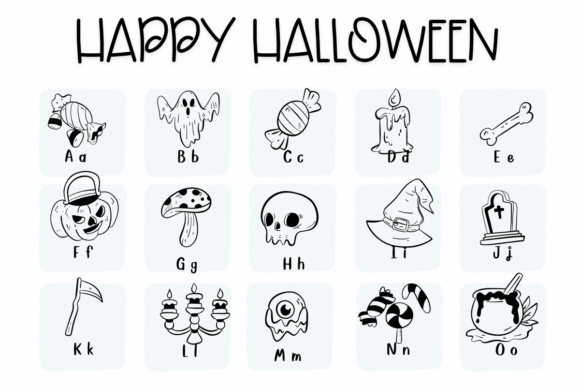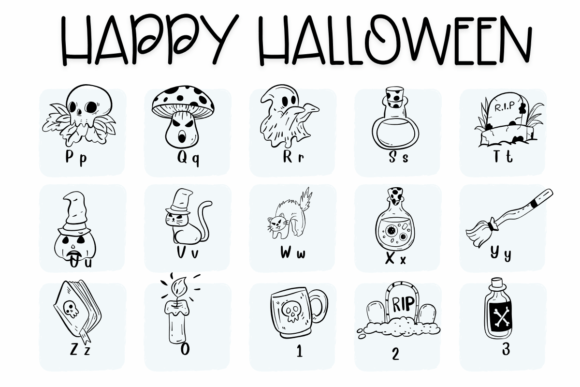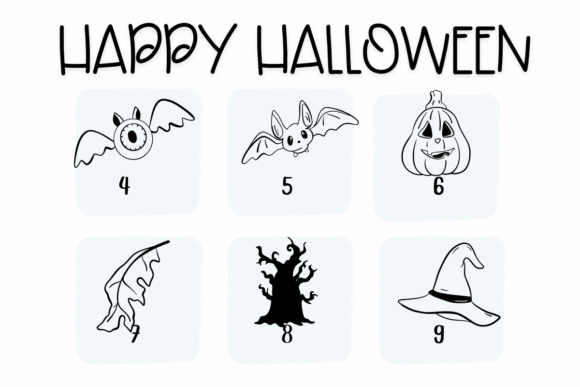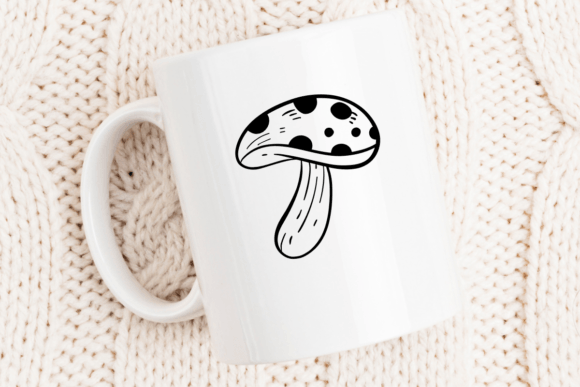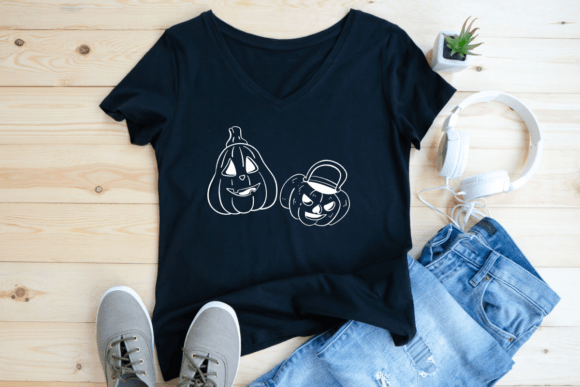
Happy Halloween Font: A Spook-tacular Addition to Your Creative Projects
Are you looking for a font that will add a touch of whimsy and playfulness to your creative projects? Look no further than the Happy Halloween font! This delightful dingbats font is perfect for designers, crafters, and DIY enthusiasts who want to add a spooky-ooky flair to their work.
What is Happy Halloween Font?
Happy Halloween is a unique dingbats font that features a sketch style theme. The font is designed to resemble hand-drawn illustrations, giving it a charming and rustic feel. The font includes a wide range of characters, symbols, and icons that are perfect for creating festive and fun designs.
Uses for Happy Halloween Font
The Happy Halloween font is incredibly versatile and can be used for a variety of creative projects, including:
- Wedding invitations: Add a touch of whimsy and romance to your wedding invitations with this delightful font.
- DIY crafts: Use the Happy Halloween font to create custom signs, decorations, and other DIY projects for your home or office.
- Decorations: Create festive decorations for Halloween, Christmas, or other holidays with this font.
- Logos: Use the Happy Halloween font to create unique and eye-catching logos for your business or brand.
- Stationery: Add a personal touch to your stationery, including greeting cards, thank-you cards, and more.
Why Choose Happy Halloween Font?
There are many reasons why you should choose the Happy Halloween font for your creative projects. Here are just a few:
- Unique and eye-catching: The Happy Halloween font is unlike any other font you’ll find. Its unique sketch style theme and wide range of characters make it perfect for creating designs that stand out.
- Versatile: This font can be used for a wide range of creative projects, from wedding invitations to DIY crafts.
- High-quality: The font is high-quality and comes with a range of characters, symbols, and icons that you can use to create professional-looking designs.
Tips for Using Happy Halloween Font
Here are a few tips for using the Happy Halloween font in your creative projects:
- Experiment with different sizes and colors: The Happy Halloween font looks great in a variety of sizes and colors. Experiment with different combinations to find the one that works best for your project.
- Pair with other fonts: The Happy Halloween font pairs well with other fonts, including serif and sans-serif fonts. Try pairing it with a bold font for a striking contrast.
- Use it sparingly: While the Happy Halloween font is fun and playful, it can be overwhelming if used too much. Use it sparingly to add a touch of whimsy to your design.